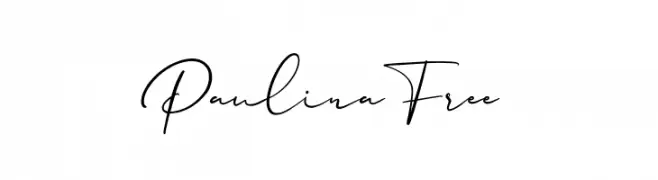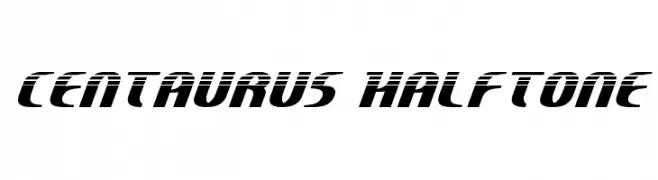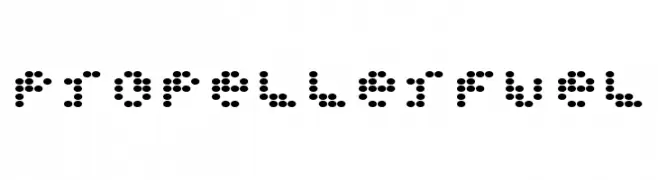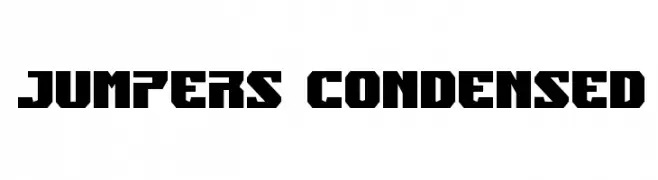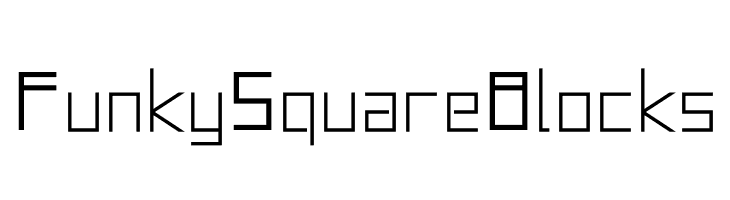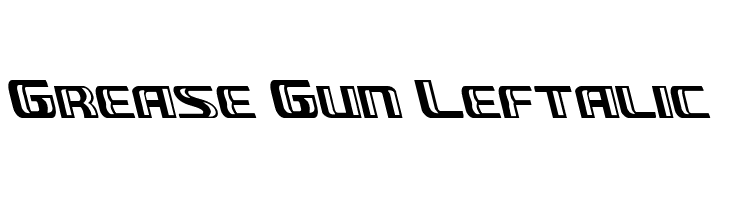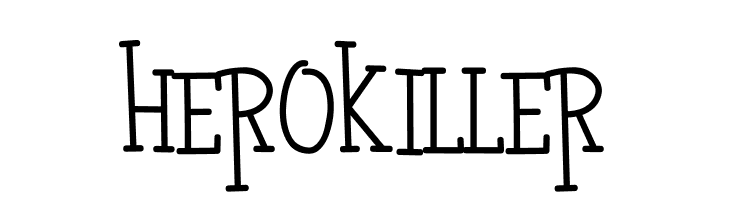
An elegant, flowing script font with smooth, continuous strokes and graceful curves.
A bold, dynamic brush script font with expressive strokes and a lively appearance.
A bold, decorative font inspired by ancient scripts with angular, geometric shapes.
A bold, slanted font with a halftone effect, exuding energy and modernity.
A playful, cursive-like font with flowing strokes and unique character shapes.
A bold, ultra-condensed font with high contrast and a modern, geometric style.
A playful, handwritten font with a quirky and informal style.
A bold, angular, and condensed font with a modern geometric style.
A bold, playful font with irregular, chunky characters and high contrast.